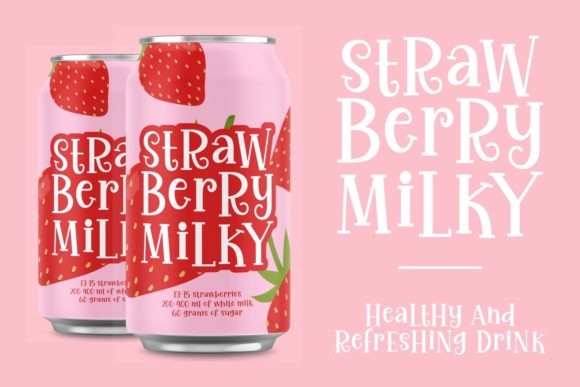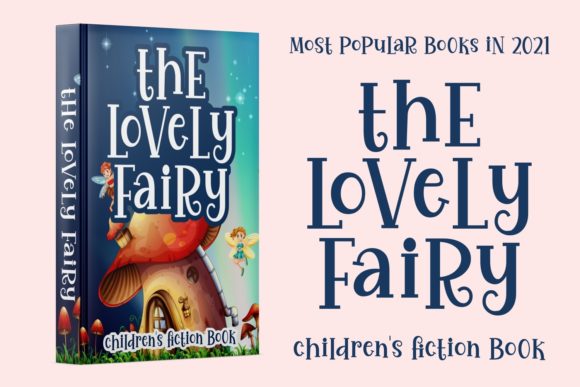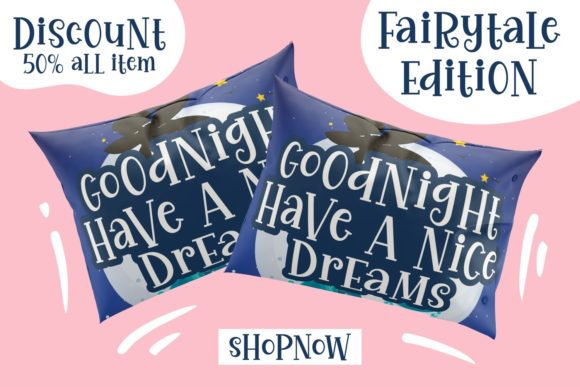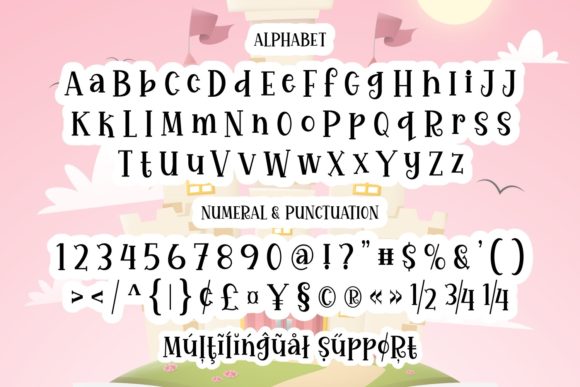
Introducing Beautiful Fairytale Font: Add a Touch of Whimsy to Your Designs
Are you a designer, crafter, or DIY enthusiast looking for a font that can add a dash of magic to your projects? Look no further than Beautiful Fairytale, a playful display font that’s perfect for delivering messages with confidence, authenticity, and charm. In this article, we’ll explore the features and benefits of this enchanting font, and show you how it can elevate your crafting ideas to the next level.
Beautiful Fairytale Font is a versatile and eye-catching font that’s designed to make a statement. Its playful and whimsical style makes it ideal for a wide range of projects, from cards and invitations to branding, labels, and more. Whether you’re creating handmade crafts, digital art, or marketing materials, this font is sure to add a touch of personality and flair to your designs.
Key Features of Beautiful Fairytale Font
- Playful and Whimsical Style: Beautiful Fairytale Font has a unique and charming style that’s reminiscent of classic fairytales. Its playful curves and lines make it perfect for creating eye-catching designs that are sure to delight.
- Highly Versatile: This font is suitable for a wide range of projects, from handmade crafts to digital art and marketing materials. Its versatility makes it a great addition to any designer’s or crafter’s toolkit.
- Easy to Read: Despite its playful style, Beautiful Fairytale Font is highly legible and easy to read. This makes it perfect for use in body text, headings, and titles.
- Scalable: This font is designed to be scalable, meaning it can be used at a variety of sizes without losing its charm or legibility.
How to Use Beautiful Fairytale Font in Your Designs
Beautiful Fairytale Font is incredibly easy to use, and can be incorporated into your designs in a variety of ways. Here are a few ideas to get you started:
- Create Eye-Catching Headings: Use Beautiful Fairytale Font to create eye-catching headings and titles for your designs. Its playful style makes it perfect for adding a touch of personality to your text.
- Add a Personal Touch to Your Cards and Invitations: Whether you’re creating handmade cards or digital invitations, Beautiful Fairytale Font is a great way to add a personal touch to your designs.
- Develop a Unique Brand Identity: If you’re a business owner or entrepreneur, Beautiful Fairytale Font can be used to develop a unique brand identity that’s playful, charming, and memorable.
- Enhance Your Digital Art: Beautiful Fairytale Font can be used to add text and captions to your digital art, making it perfect for social media graphics, blog posts, and more.
Benefits of Using Beautiful Fairytale Font
So why should you choose Beautiful Fairytale Font for your designs? Here are just a few benefits of using this enchanting font:
- Adds a Touch of Whimsy: Beautiful Fairytale Font adds a touch of whimsy and personality to your designs, making them more engaging and memorable.
- Increases Legibility: Despite its playful style, Beautiful Fairytale Font is highly legible, making it perfect for use in body text and headings.
- Saves Time: With Beautiful Fairytale Font, you can create professional-looking designs in no time. Its ease of use and versatility make it a great time-saving tool.
- Improves Brand Recognition: By using Beautiful Fairytale Font in your designs, you can create a consistent brand identity that’s playful, charming, and memorable.
In conclusion, Beautiful Fairytale Font is a playful display font that’s perfect for designers, crafters, and DIY enthusiasts looking to add a touch of magic to their projects. Its whimsical style, versatility, and ease of use make it a great addition to any designer’s or crafter’s toolkit. Whether you’re creating handmade crafts, digital art, or marketing materials, Beautiful Fairytale Font is sure to elevate your designs to the next level.